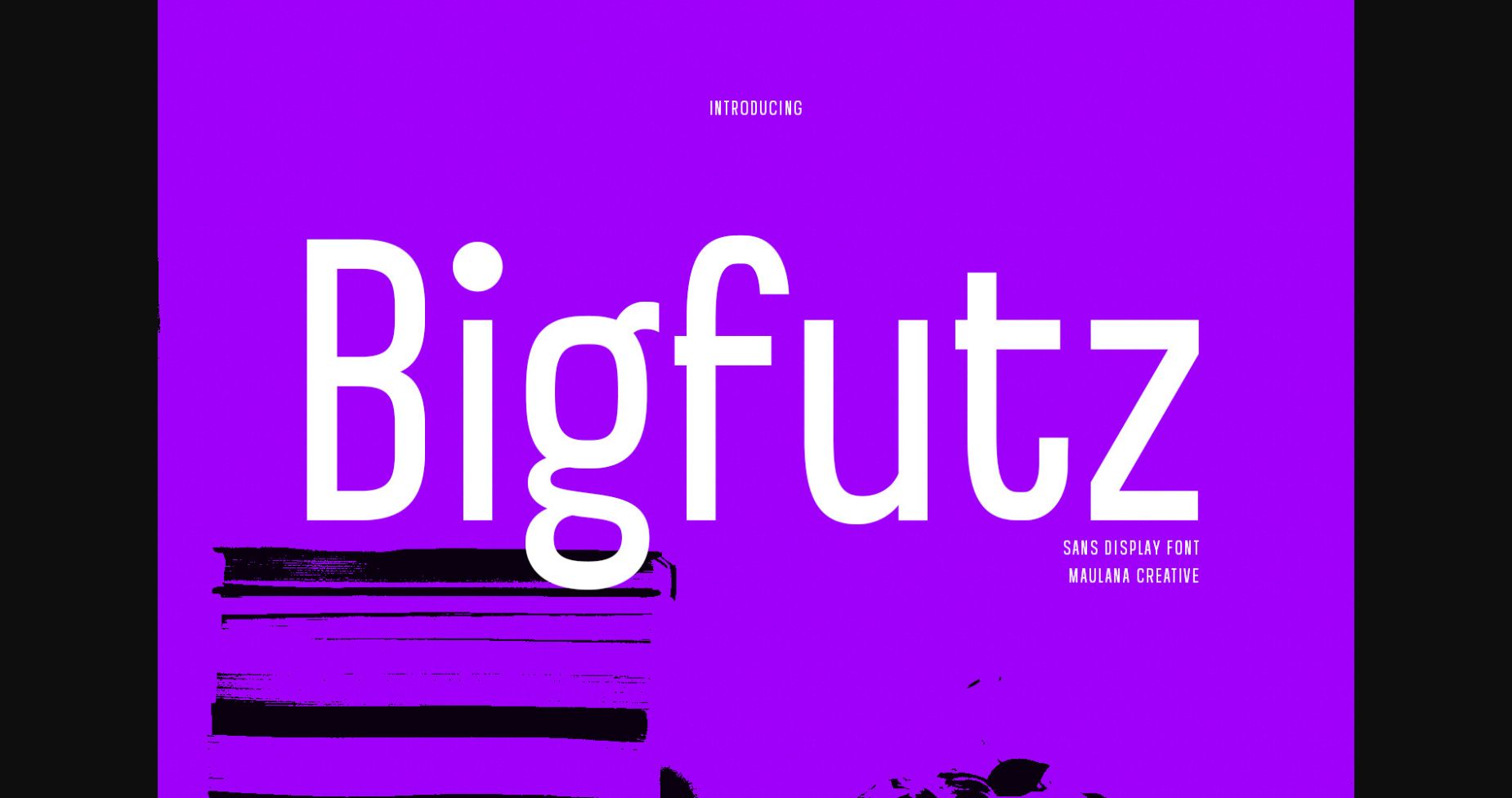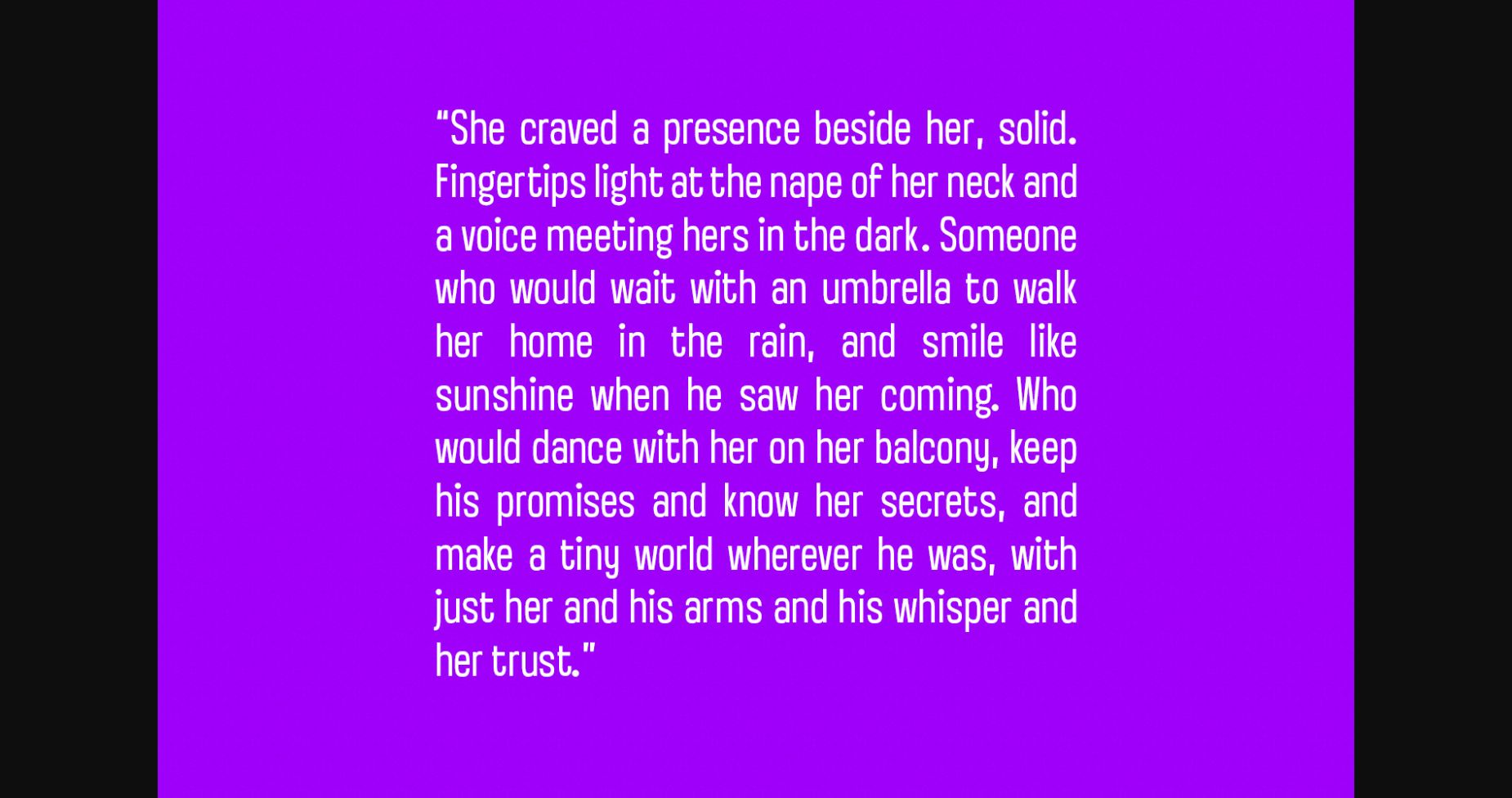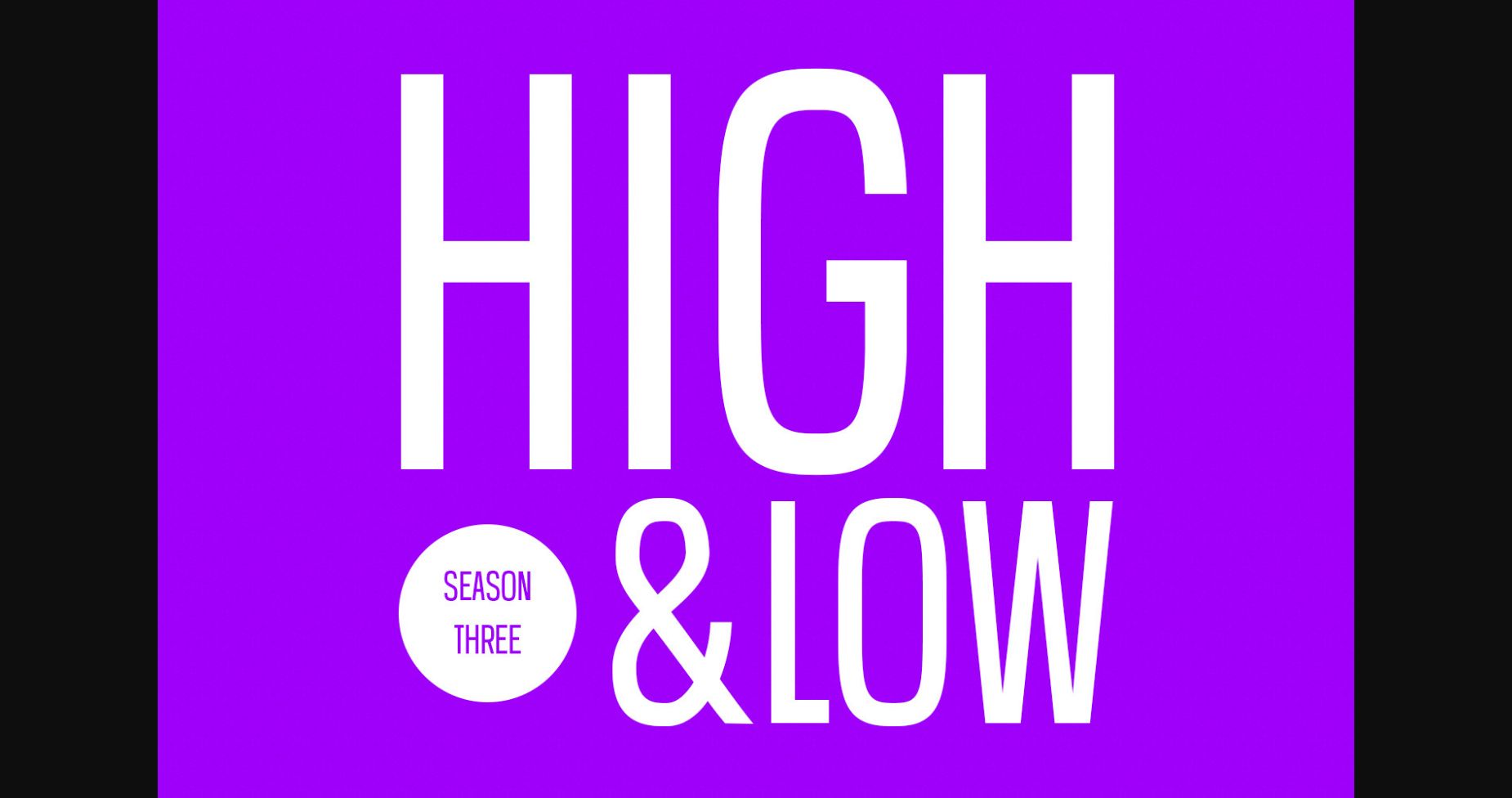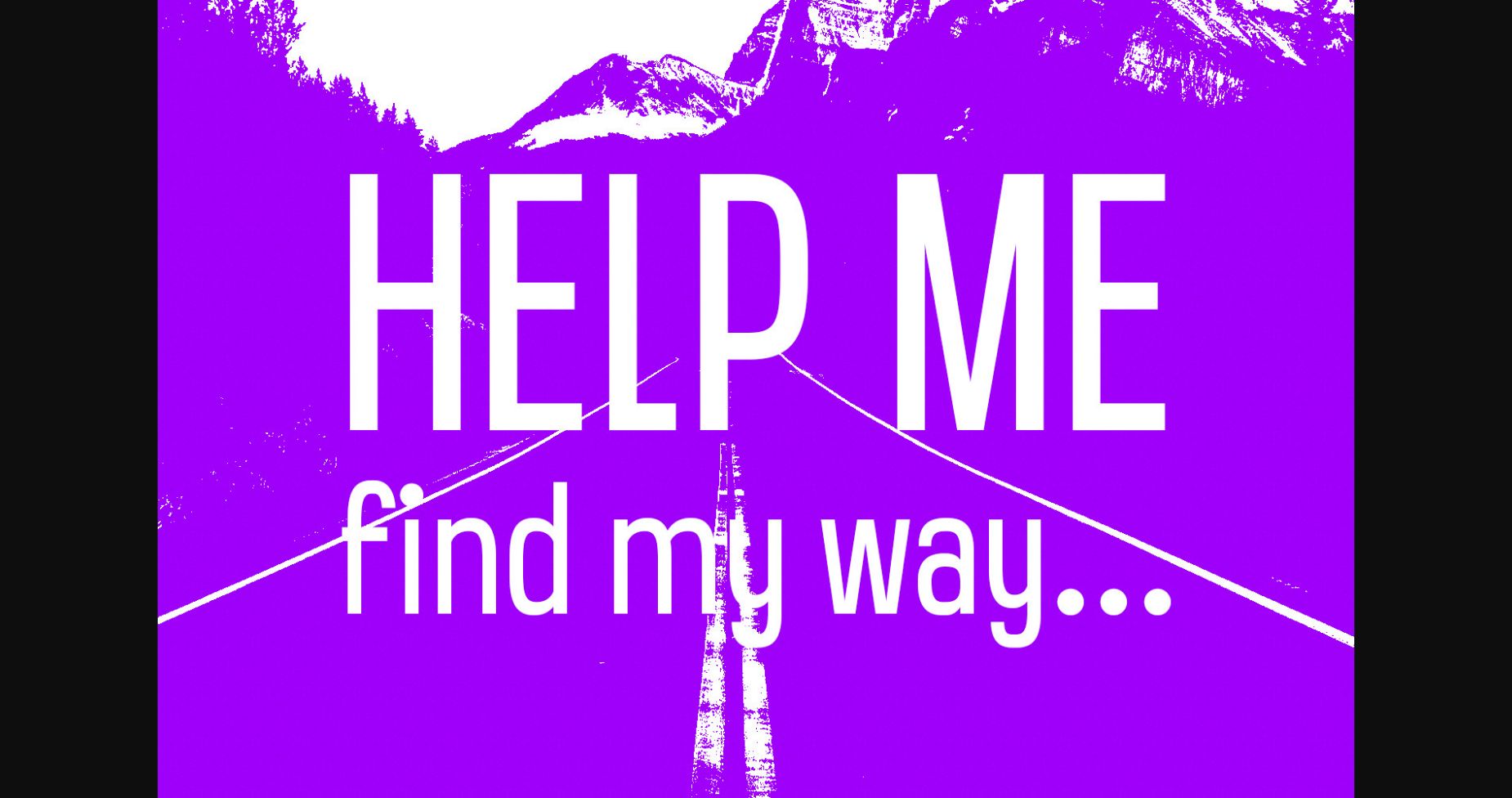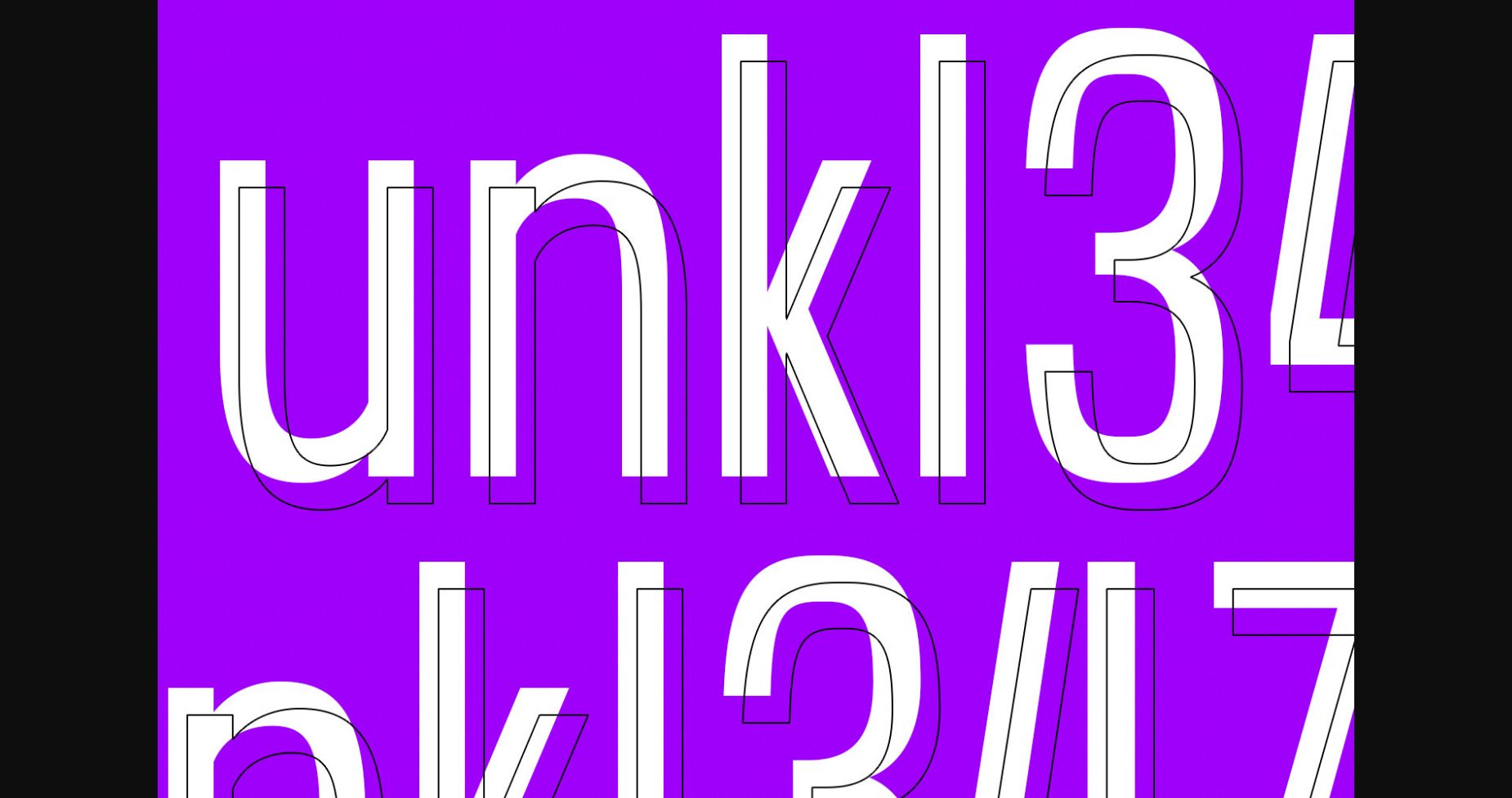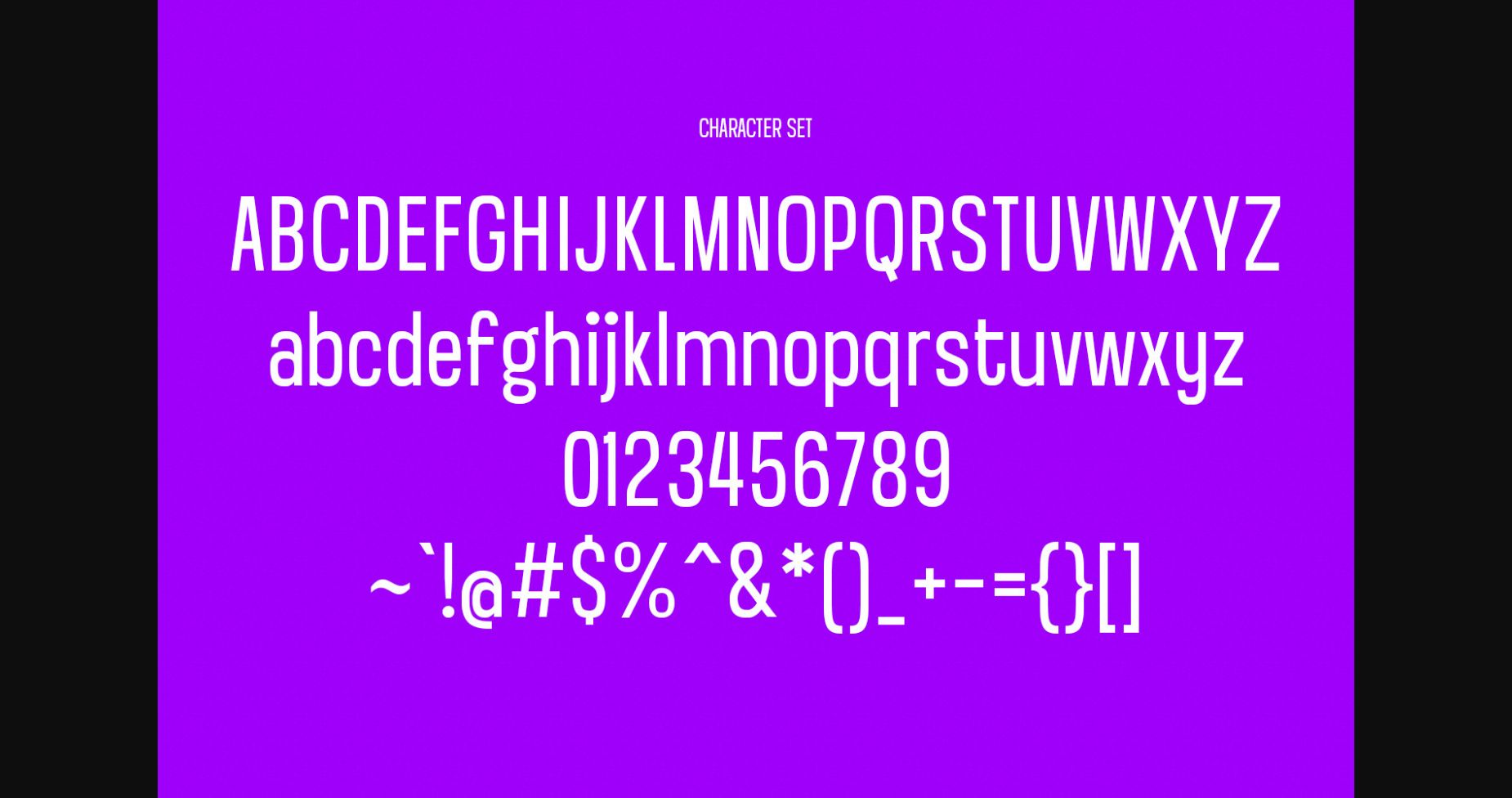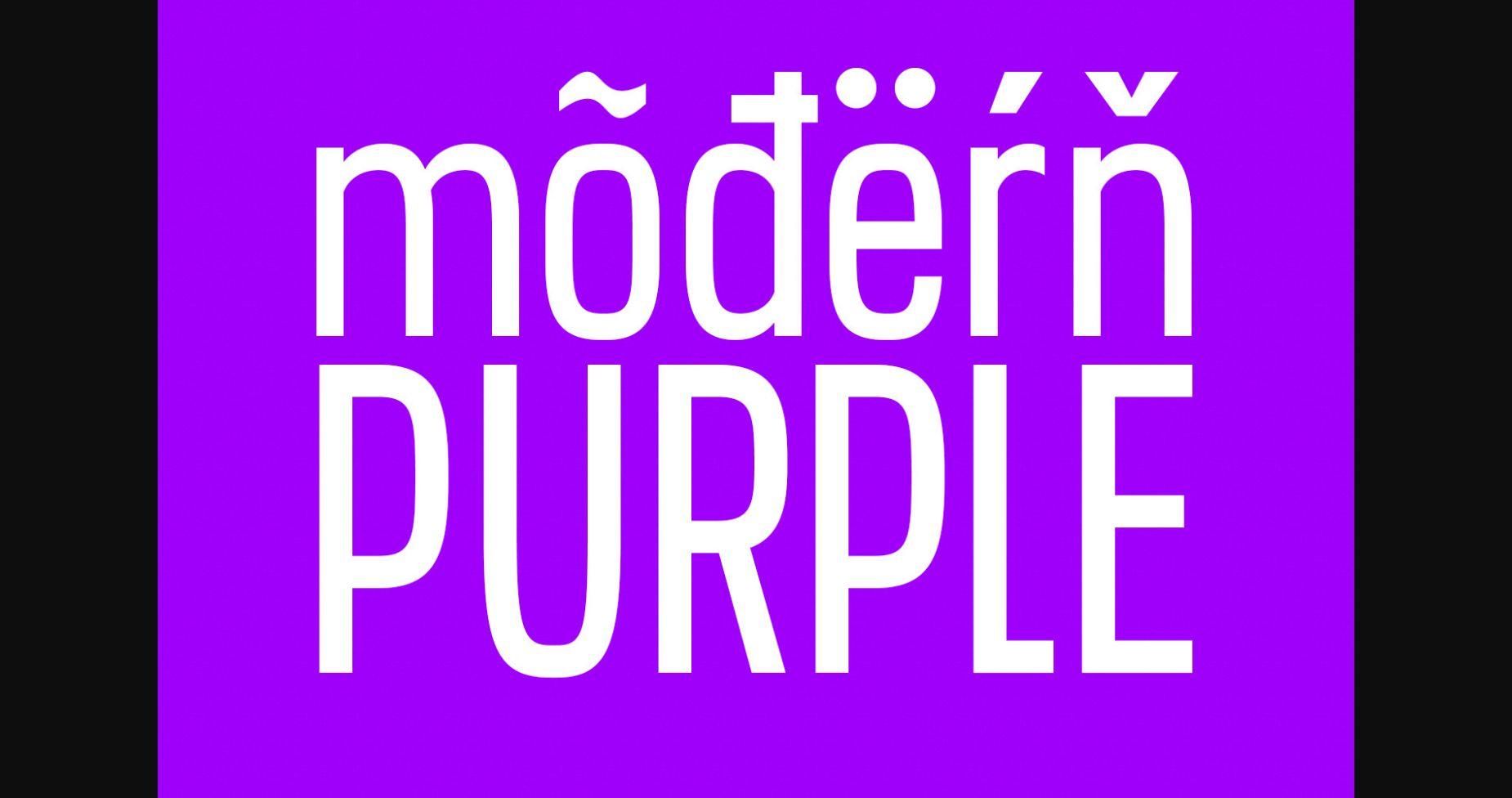
Bigfutz Font
About Bigfutz Font
Bigfutz is a modern Decorative sans serif condensed font. Medium stroke, fun character with a bit of ligature and alternates. Bigfutz font support multilingual more than 100+ language. This font is good for logo design, Social media, Movie Titles, Books Titles, short text even long text letters, and is good for your secondary text font with script or serif. Make stunning work with Bigfutz font.